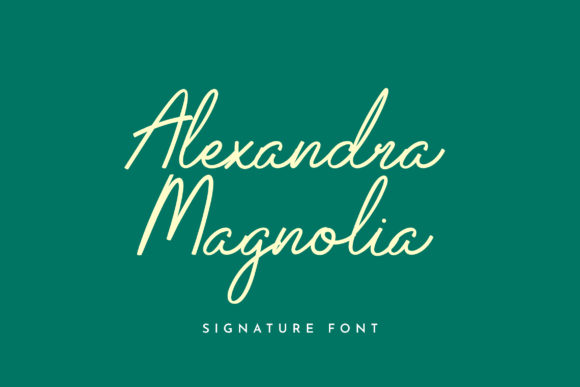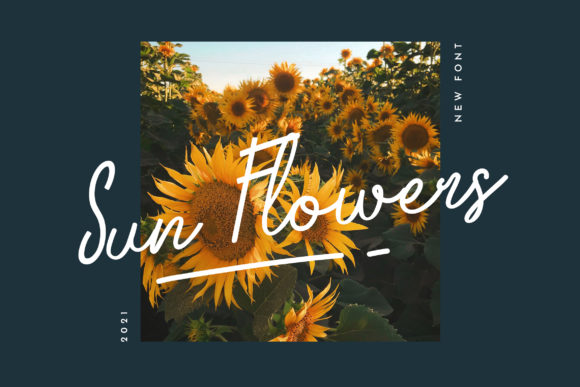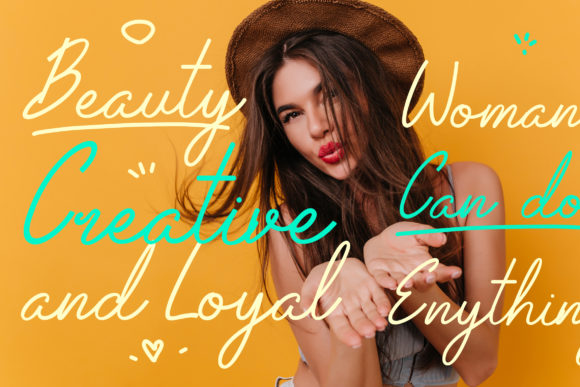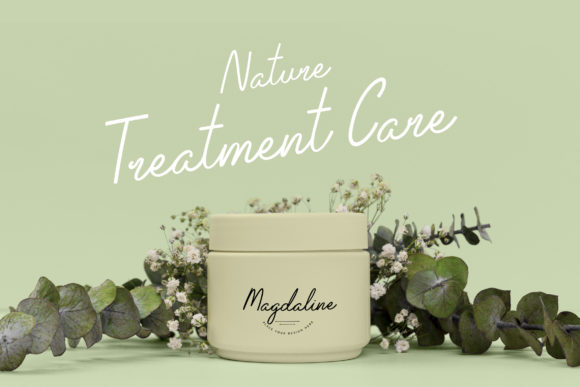
Alexandra Magnolia Font
About Alexandra Magnolia Font
Alexandra Magnolia is a cursive, delicate and thin lettered script font. It is defined by smooth curves and is perfect for fashion branding or editorial designs. Add it confidently to your projects, and you will love the results.